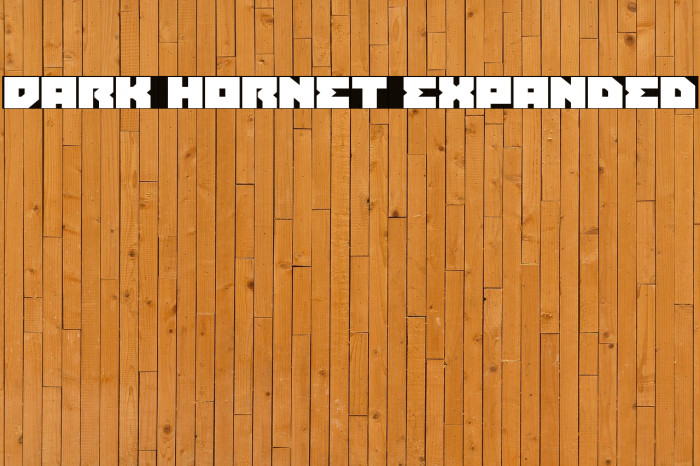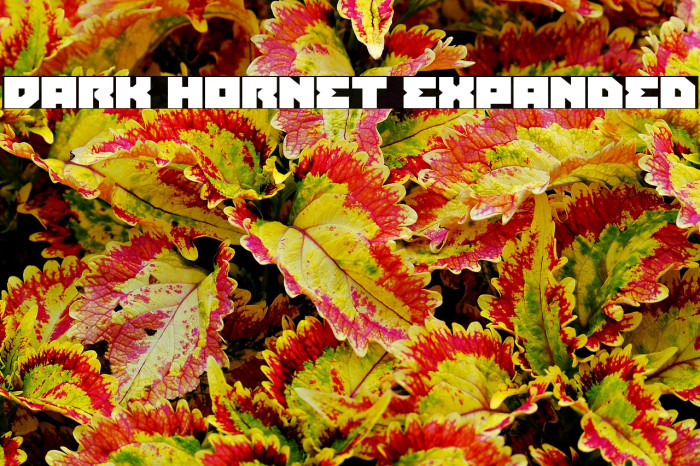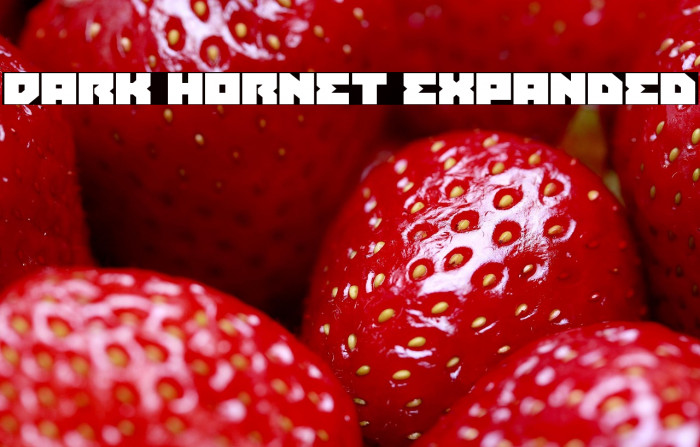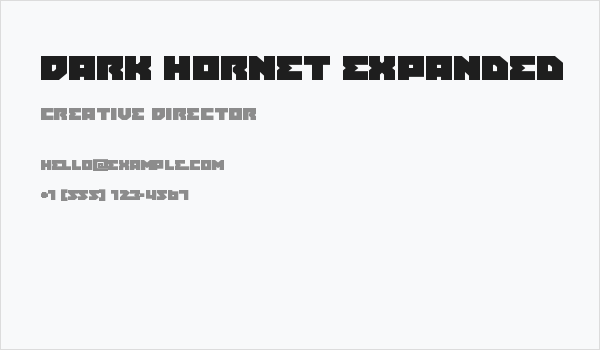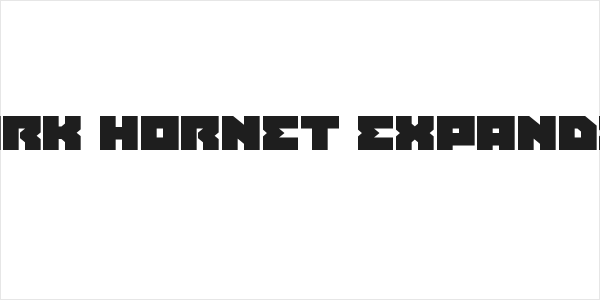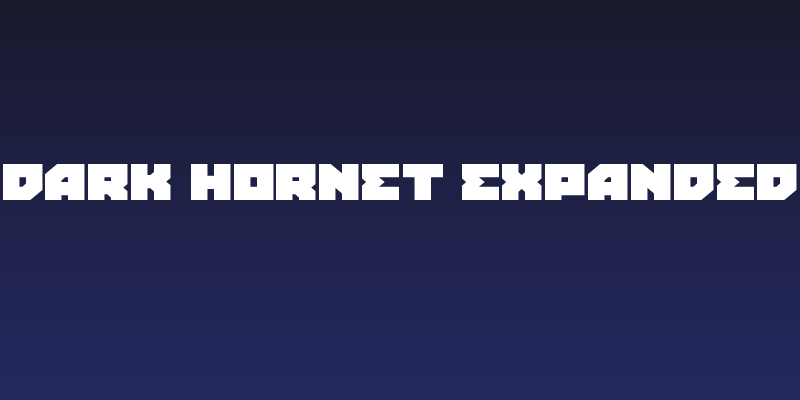
Dark Hornet Expanded Font
Dark Hornet Expanded Description
This font features a bold, geometric design with sharp angles and a blocky appearance. The characters are uniformly thick, giving it a strong and impactful presence. The uppercase and lowercase letters maintain a consistent style, with a futuristic and industrial feel. The numbers and special characters follow the same design principles, ensuring a cohesive look across all elements. The font's expanded width and tight character spacing enhance its boldness, making it ideal for attention-grabbing designs.
| Proposed Projects | Ideal for use in video game graphics, sci-fi movie posters, technology branding, and any project requiring a strong, modern aesthetic. |